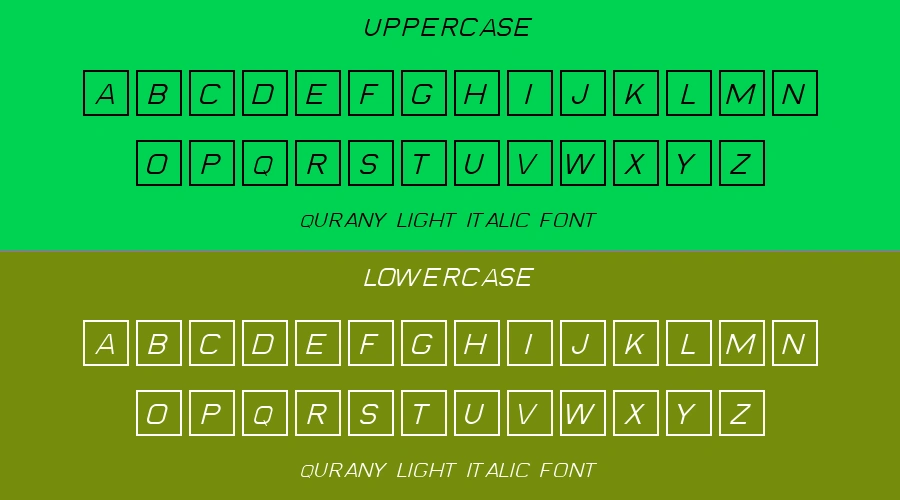
About Qurany Light Italic Font
Qurany Light Italic Font embodies typographic excellence through its masterful combination of elegant proportions and accuracy. Created for magazine layout, this typeface delivers exceptional reliability and brand power across all applications. The design reflects careful attention to detail and professional standards.
Advanced capabilities include distinctive rhythmic patterns and versatile careful spacing, giving designers creative control. When used in creative titles, Qurany Light Italic Font exhibits remarkable large format impact. The harmonious balance between ascender height and technical tradition sets this typeface apart.